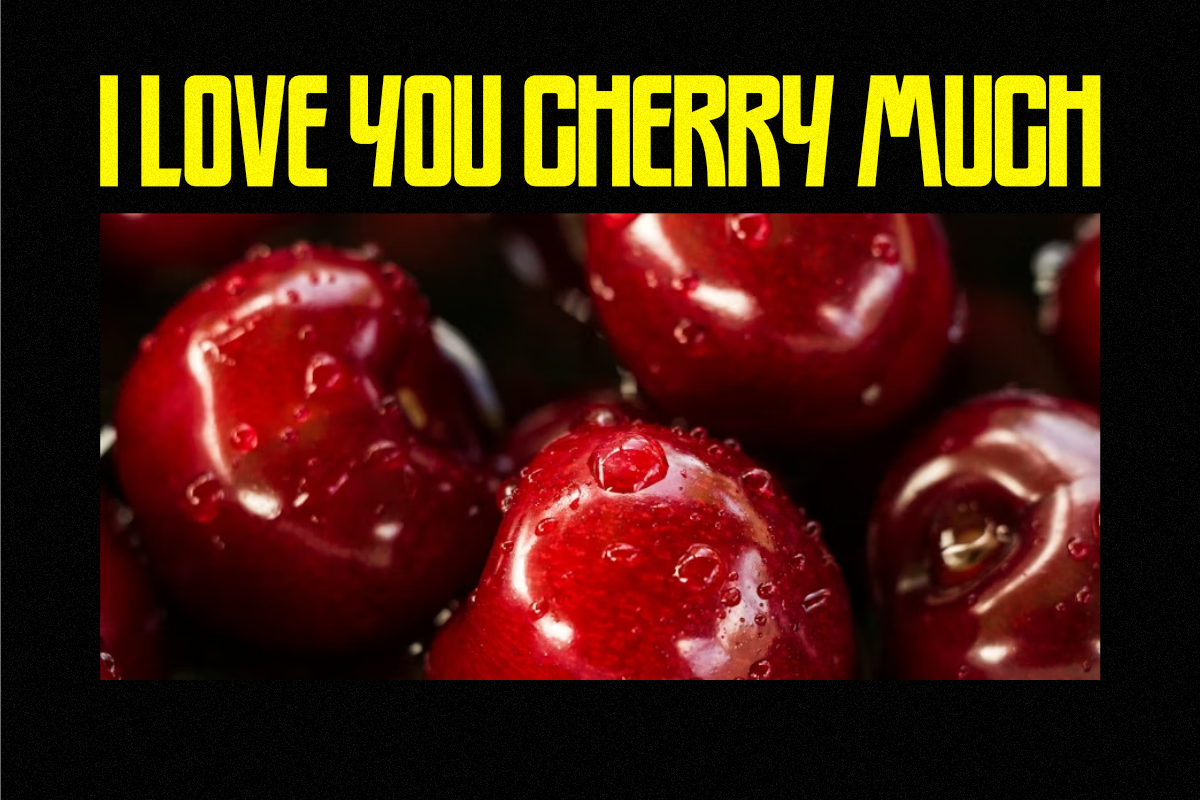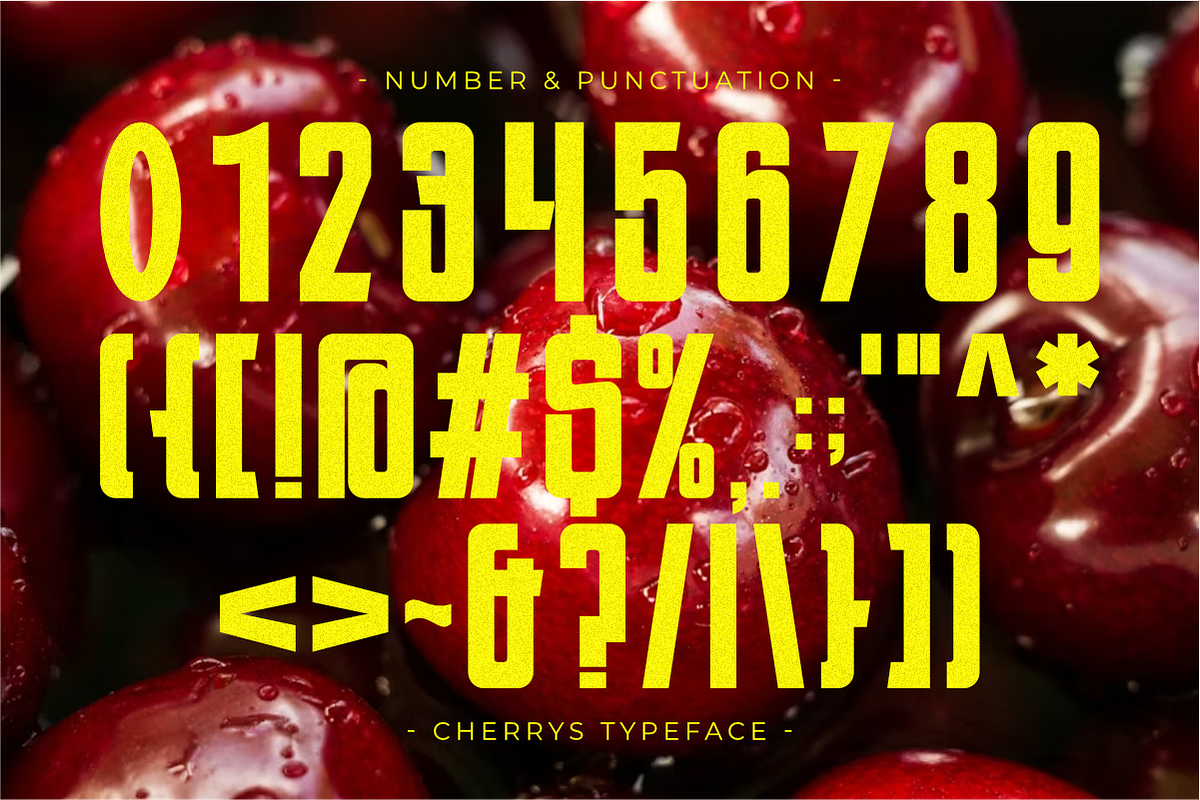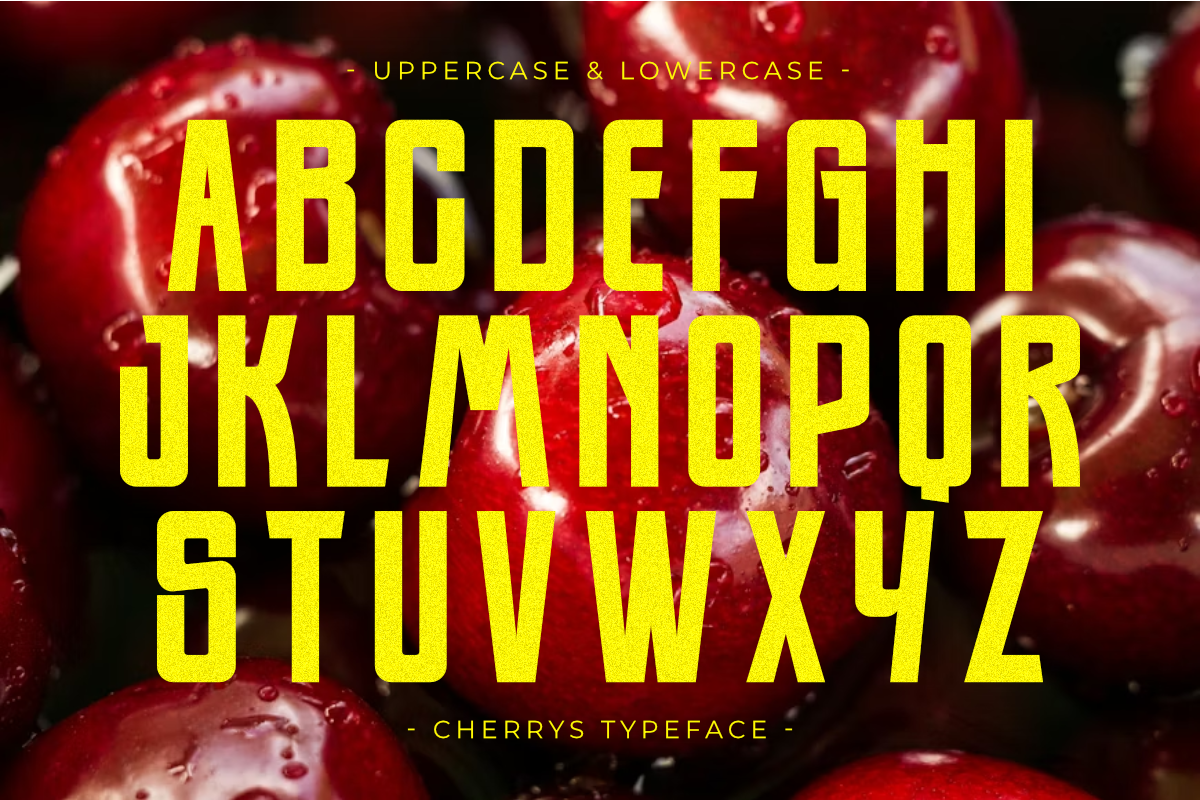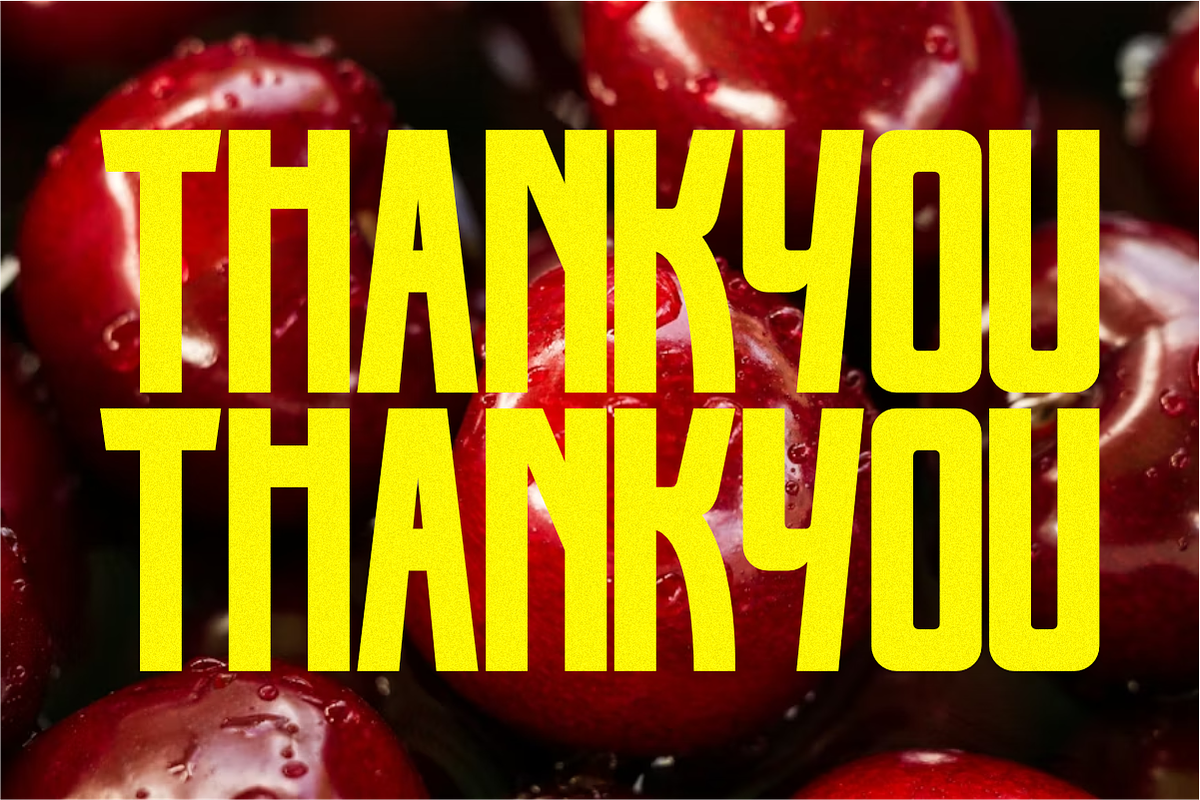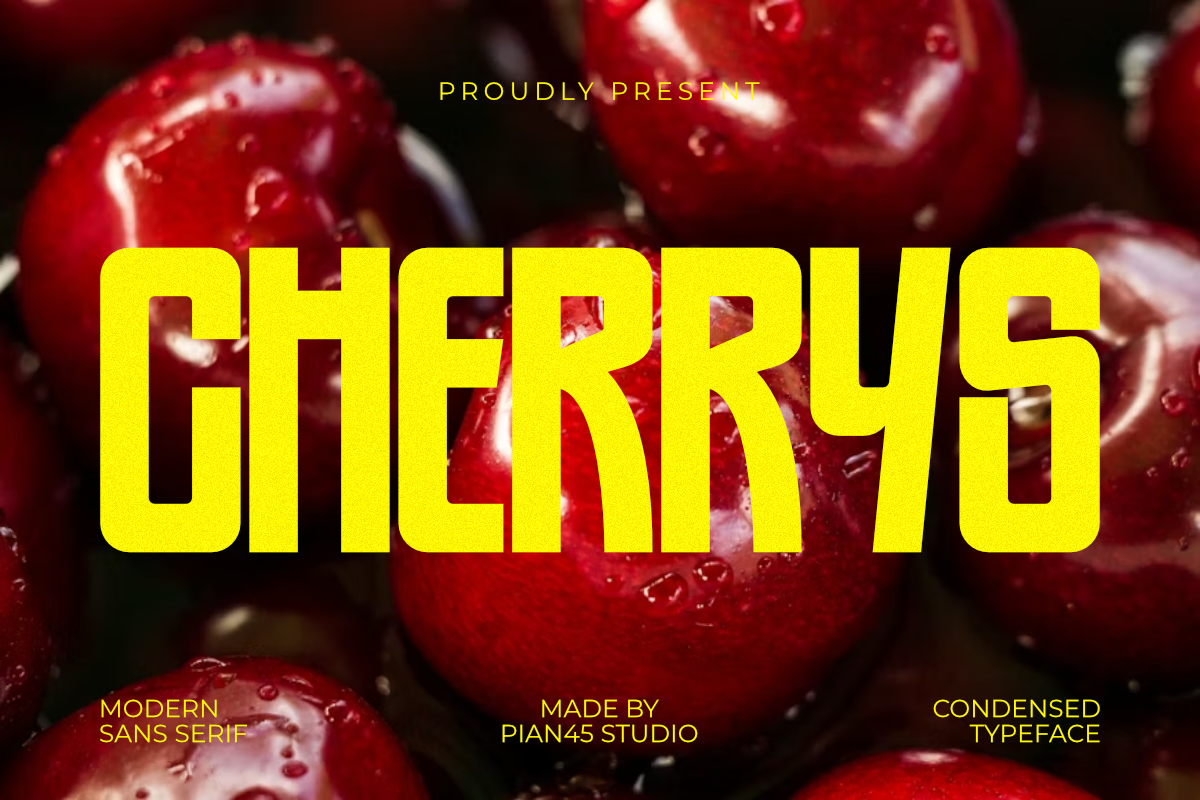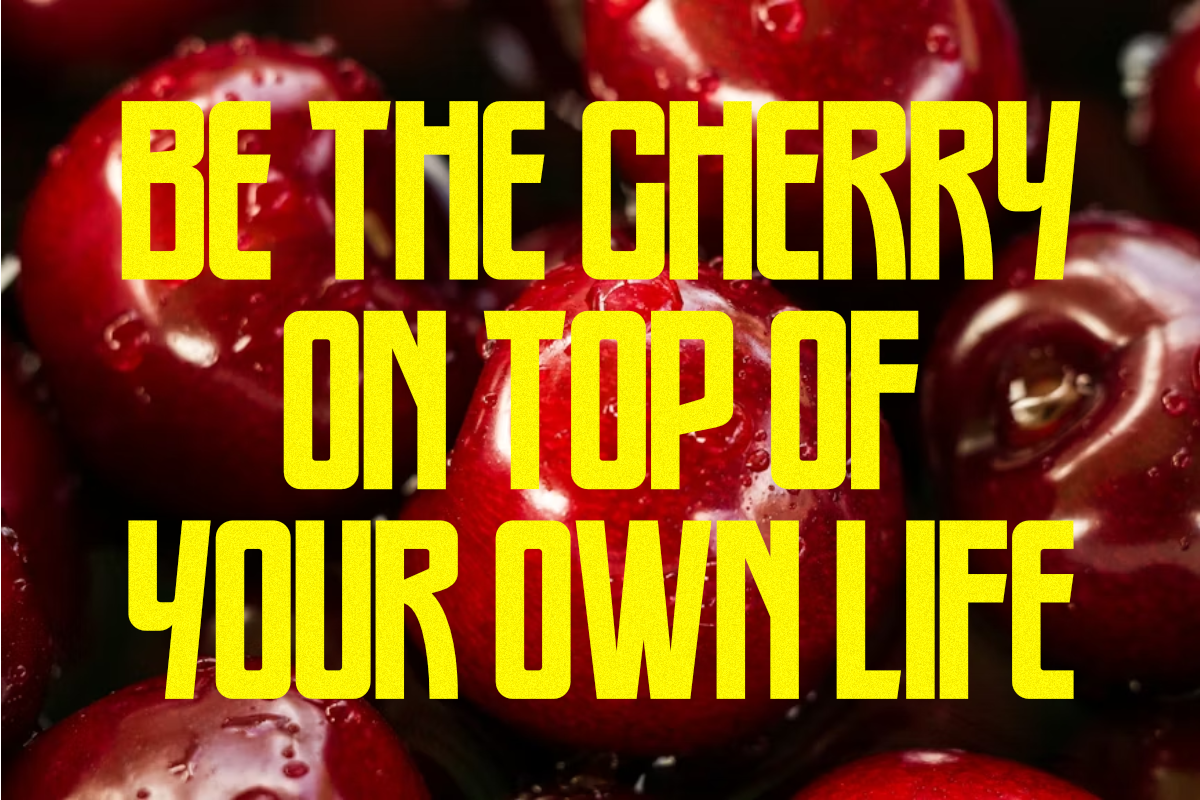
Cherrys - Modern Sans Serif Font
Cherrys is a bold and striking Modern Sans Serif font that combines an ultra-thick condensed typeface with a clean, high-impact aesthetic. Perfectly suited for contemporary branding, it excels in creating powerful headlines, vibrant Valentine’s Day promotional graphics, and modern streetwear apparel. Its massive, blocky structure ensures maximum readability and visual weight, making it an essential tool for designers looking to create 'sweet' yet dominant visual identities for logos, posters, and digital marketing.